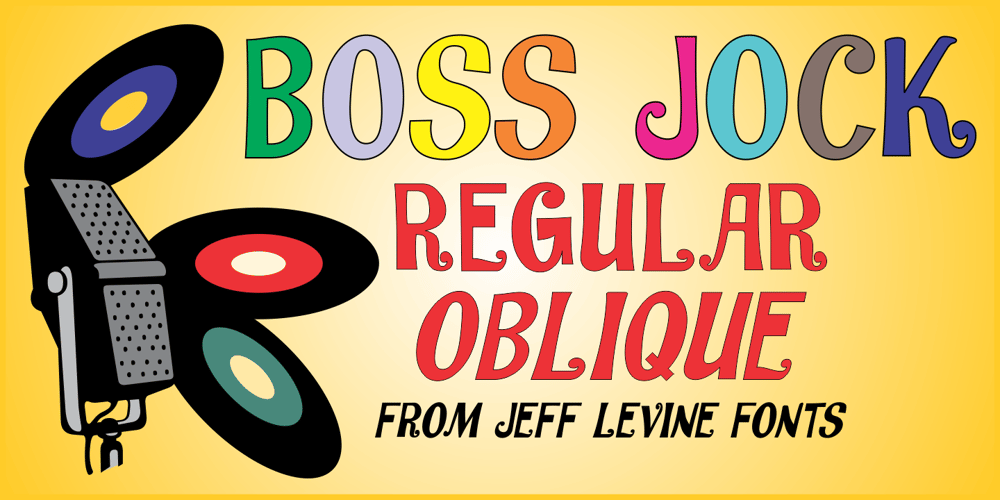
Boss Jock JNL Font Family was designed by Jeff Levine and published by Jeff Levine. Boss Jock JNL contains 2 styles and family package options. The title and credits from the 1965 film “Strange Bedfellows” were hand lettered in a style typical of the early-to-mid 1960s – casual and playful. This brought to mind similar type designs used by many radio stations when advertising their disc jockeys as cool, hip and fashionable in the slang term of the day “boss” jocks.Boss Jock JNL is available in both regular and oblique versions.